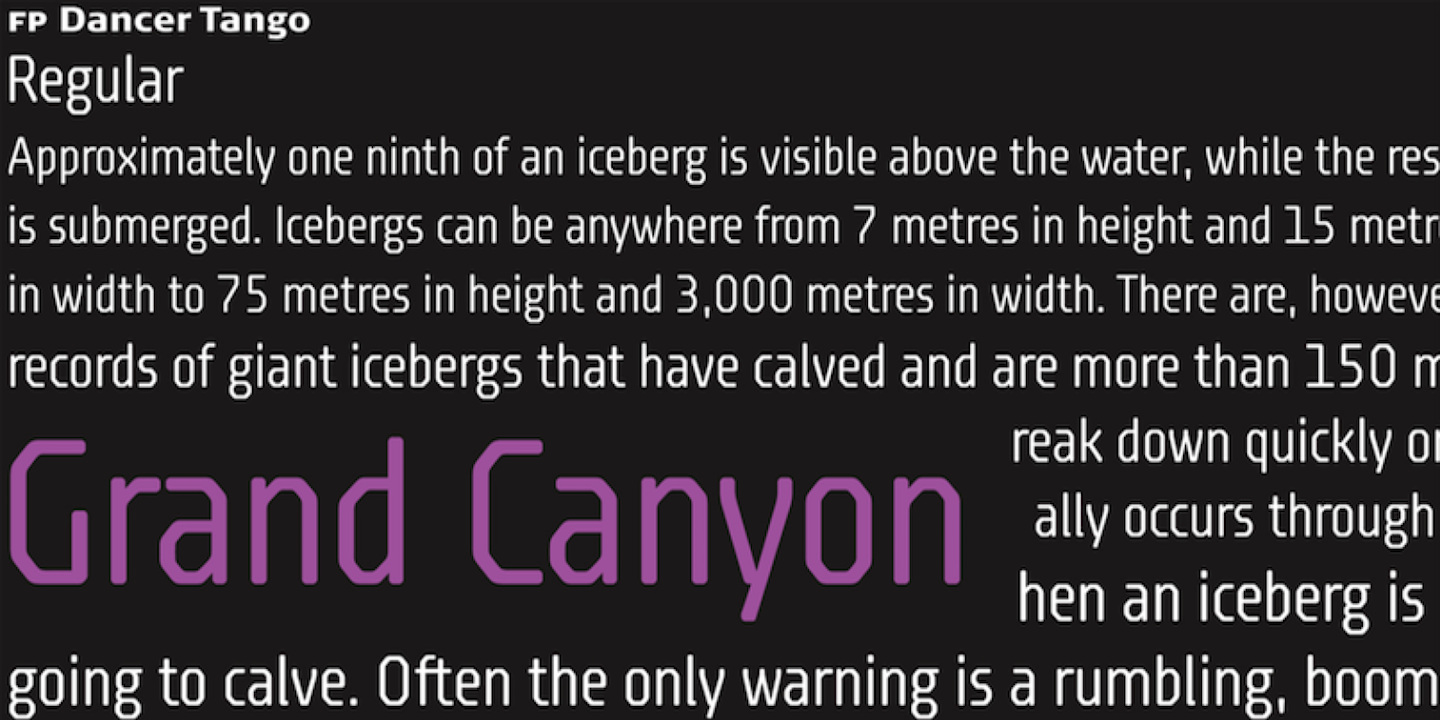
FP Dancer Tango
Designed by Morten Rostgaard Olsen, FP Dancer Tango is a sans serif font family. This typeface has two styles and was published by Fontpartners.
FP Dancer Tango is a humanist-influenced techno-like font, designed 2012-14 by Morten Rostgaard Olsen & Ole Søndergaard.
FP Dancer Tango will be a useful tool, helping you to create wonderful headlines and text-columns in magazines and so.
The font is surprisingly readable, even in small sizes. Among other things as a result of the smooth transitions between the angular shapes. In addition, the condensed shapes saves a lot of space.